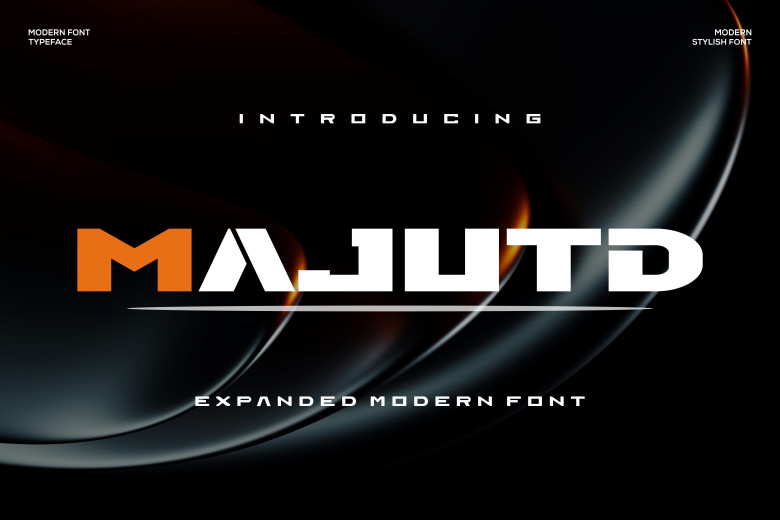
Majutd Font
Majutd is a sans-serif and modern font type with Having shaved lines and a clear type. It’s very simple to read and gives a clean cut, modern look to it which is ideal especially for the headlines, logos, and anything else that needs to ‘stand out’. The letters are not crowded which gives a more professional look to your text and the letters stand out splendidly.
Majutd Display Font